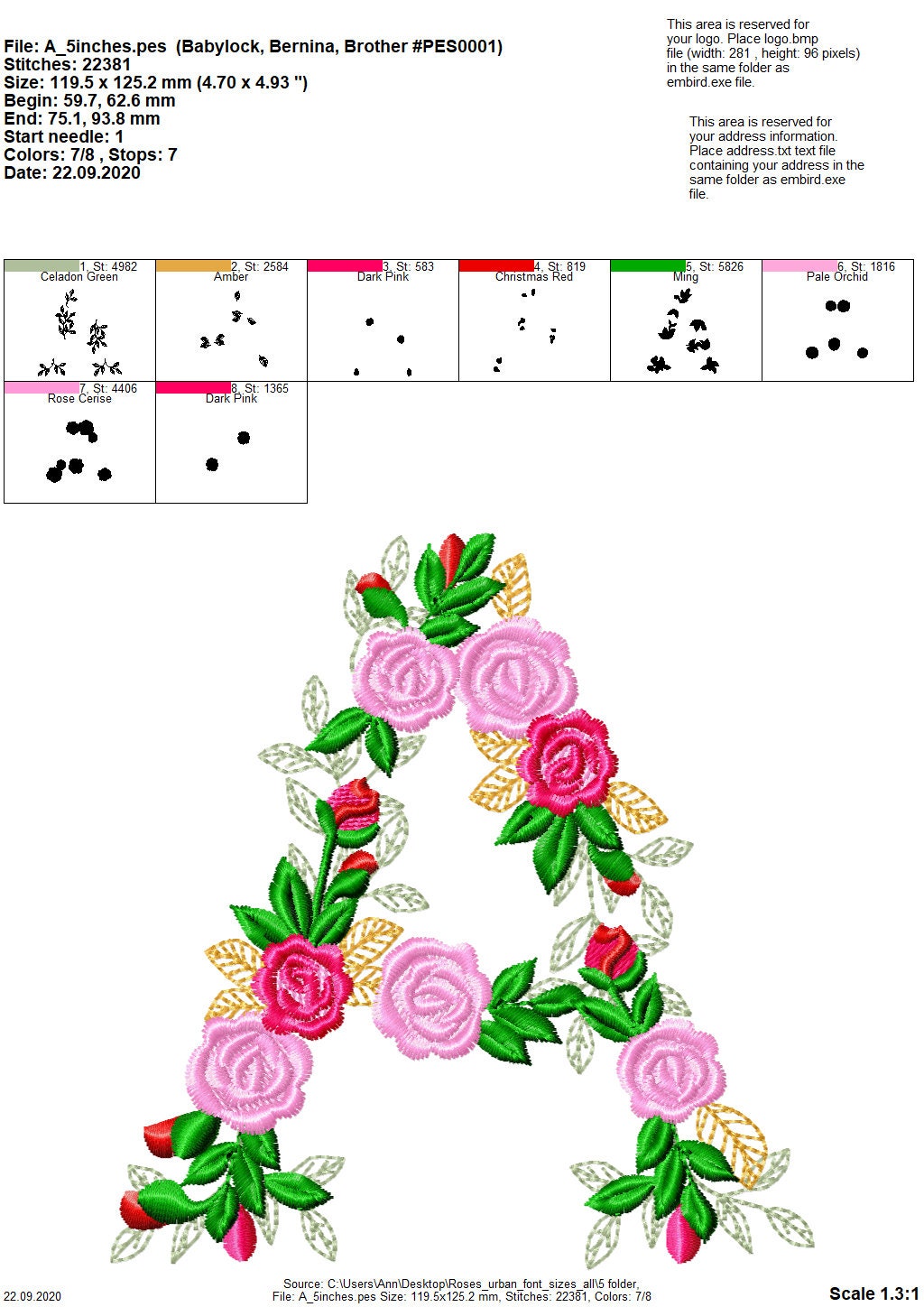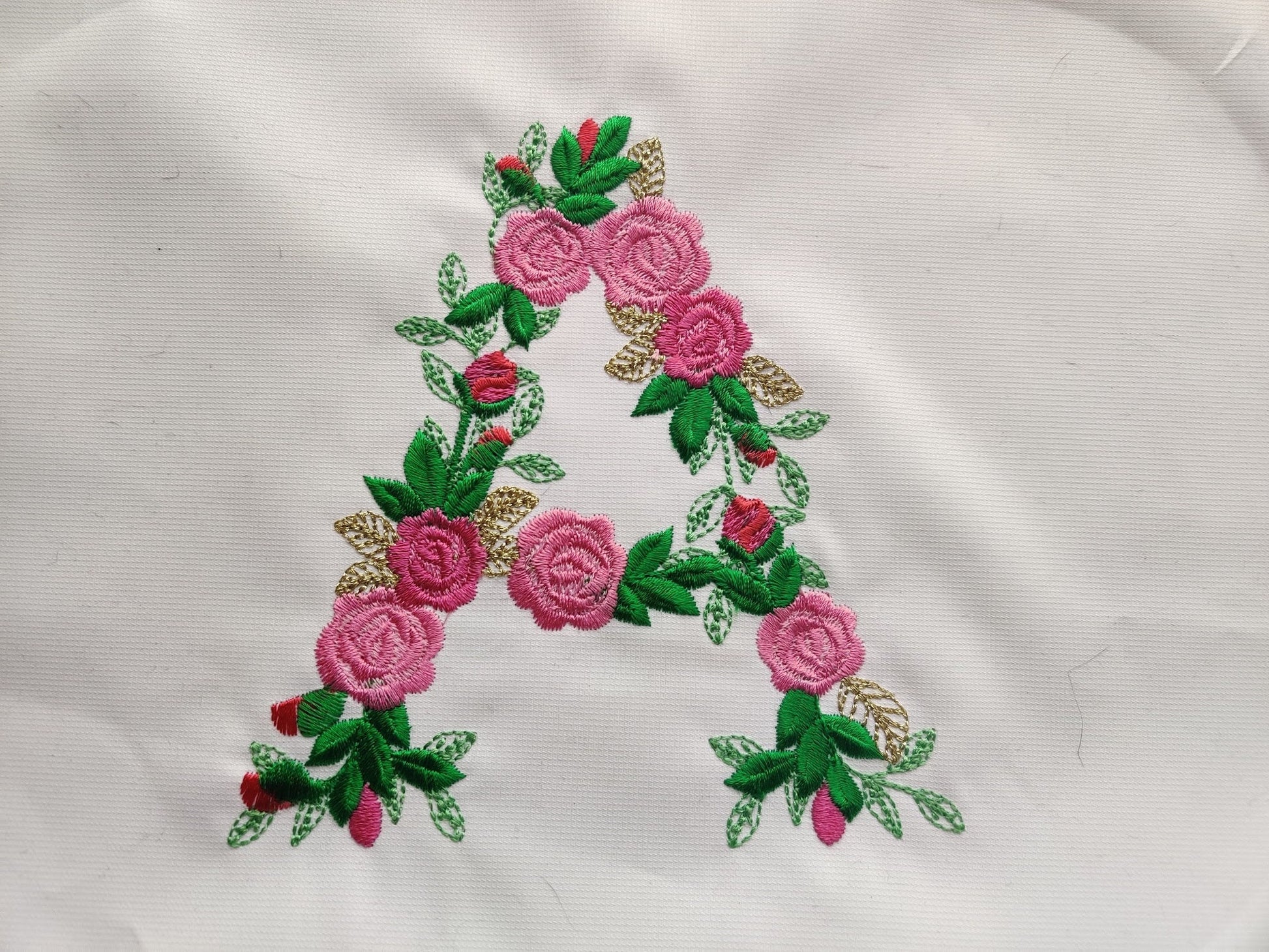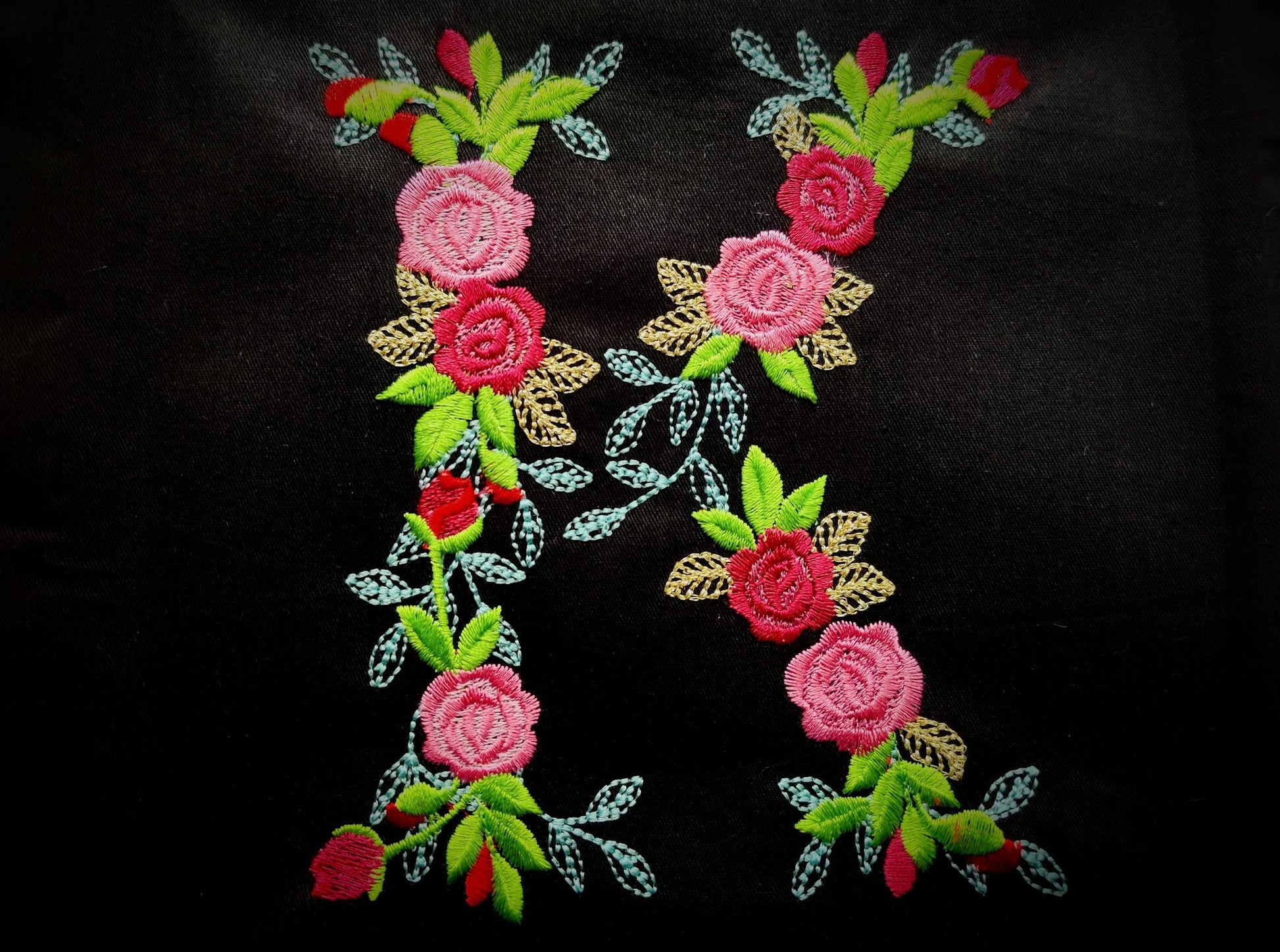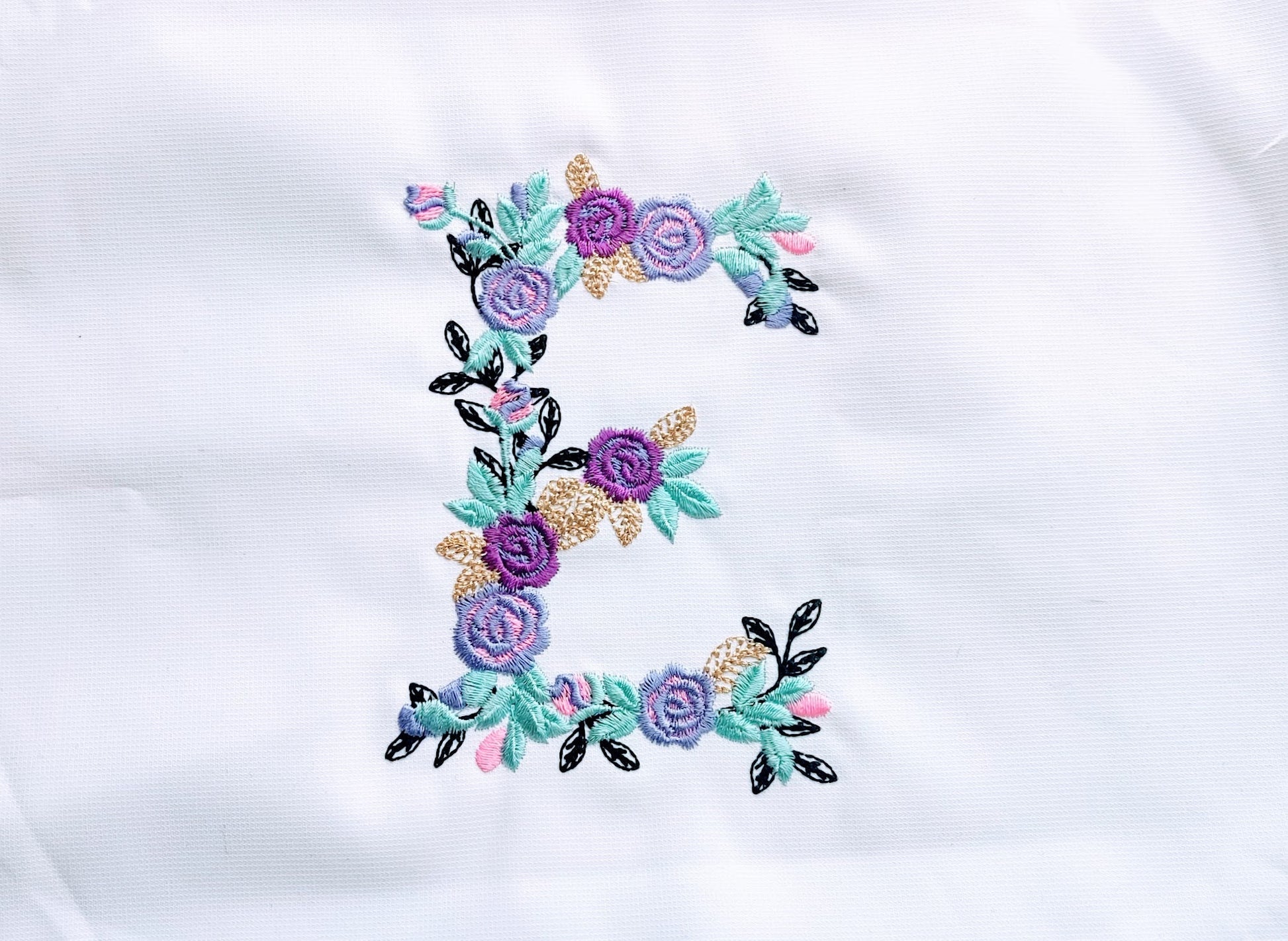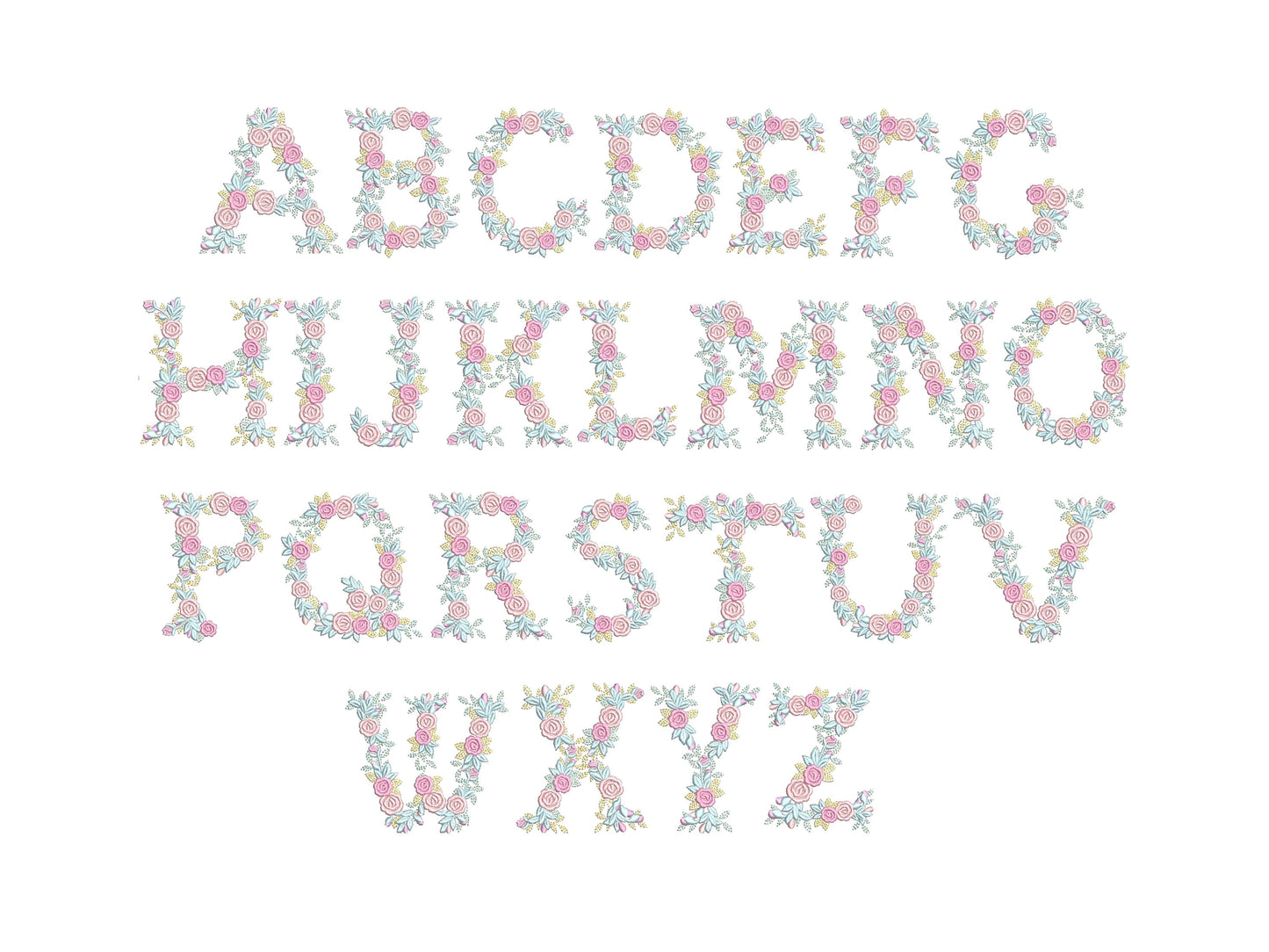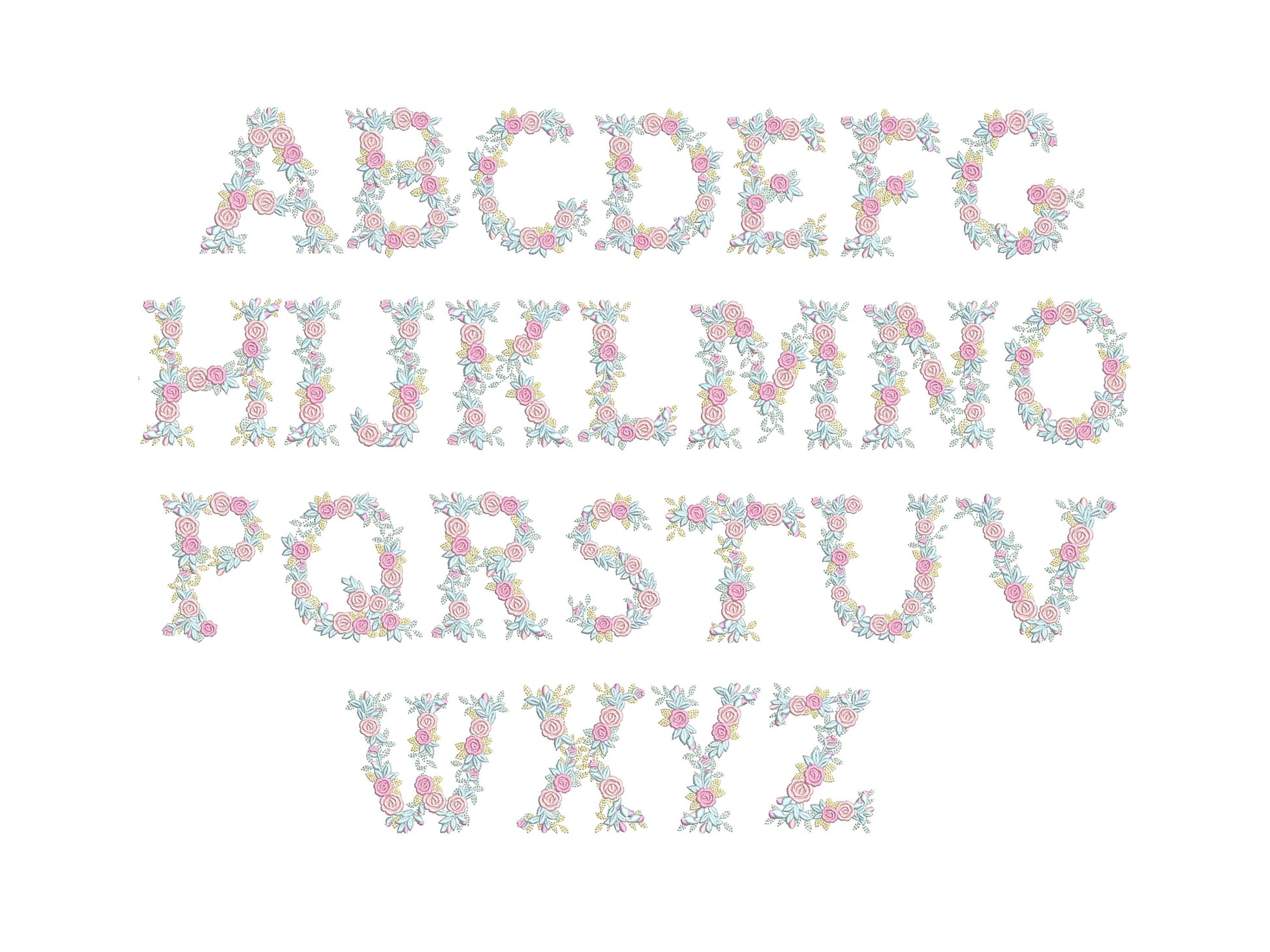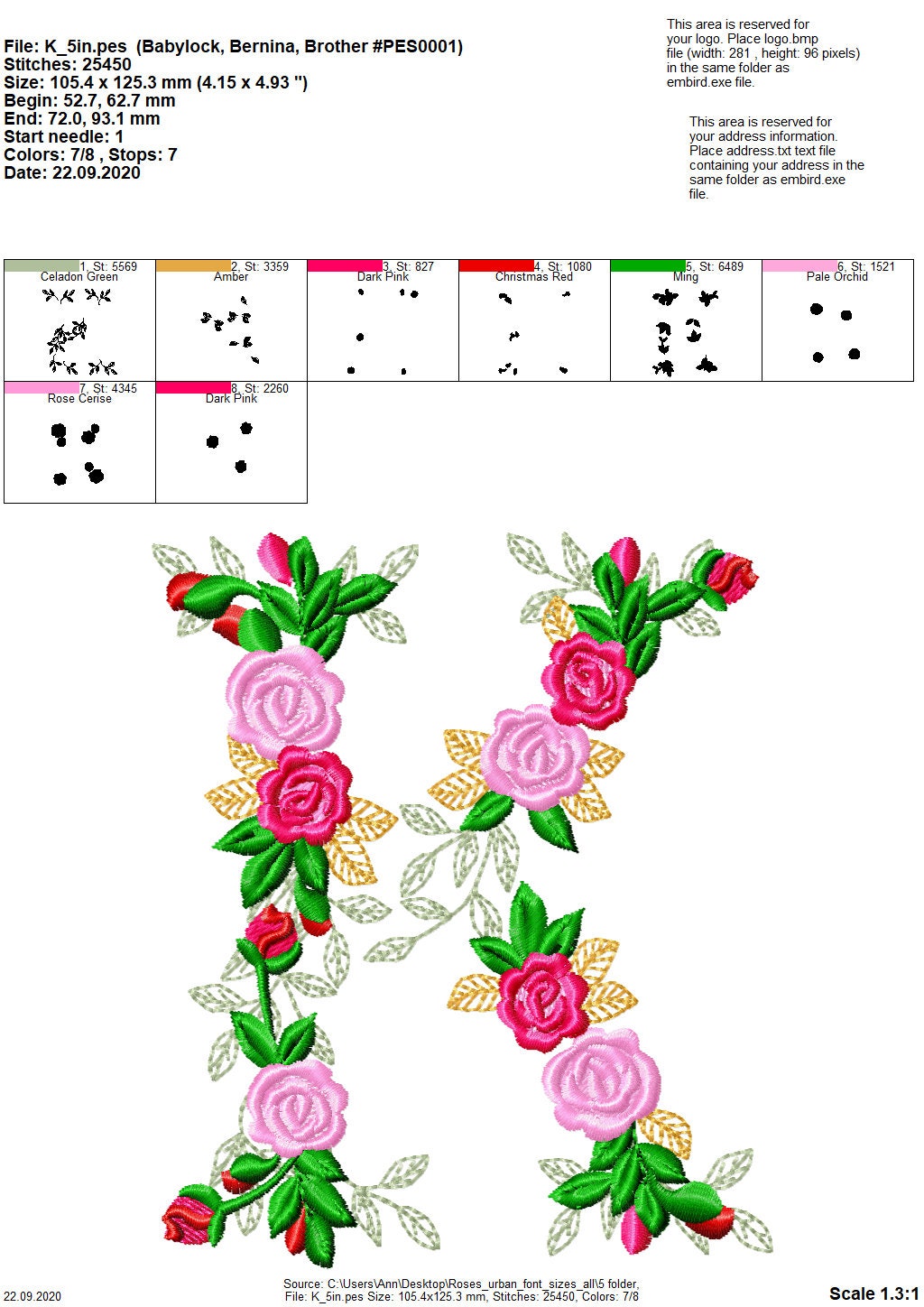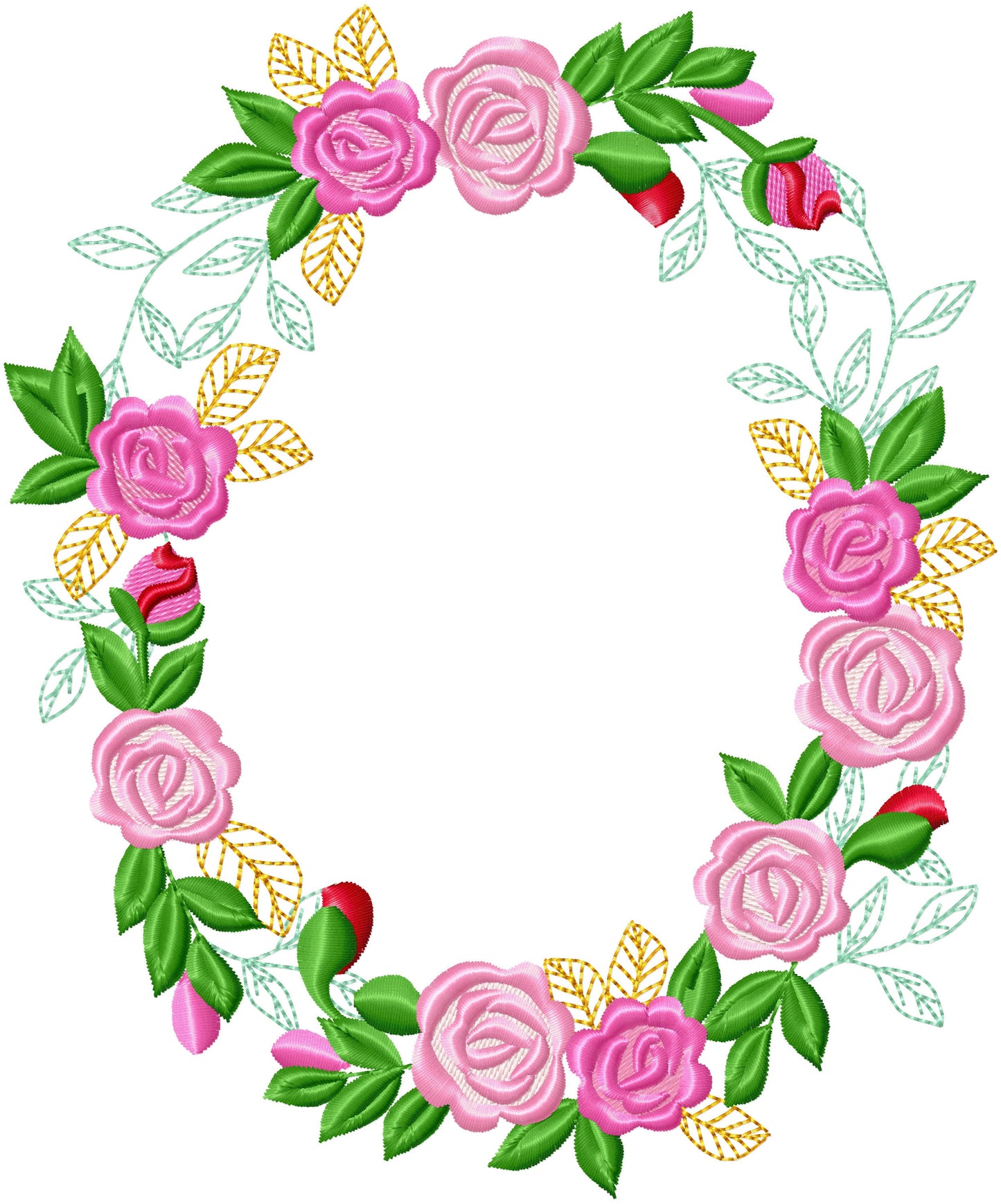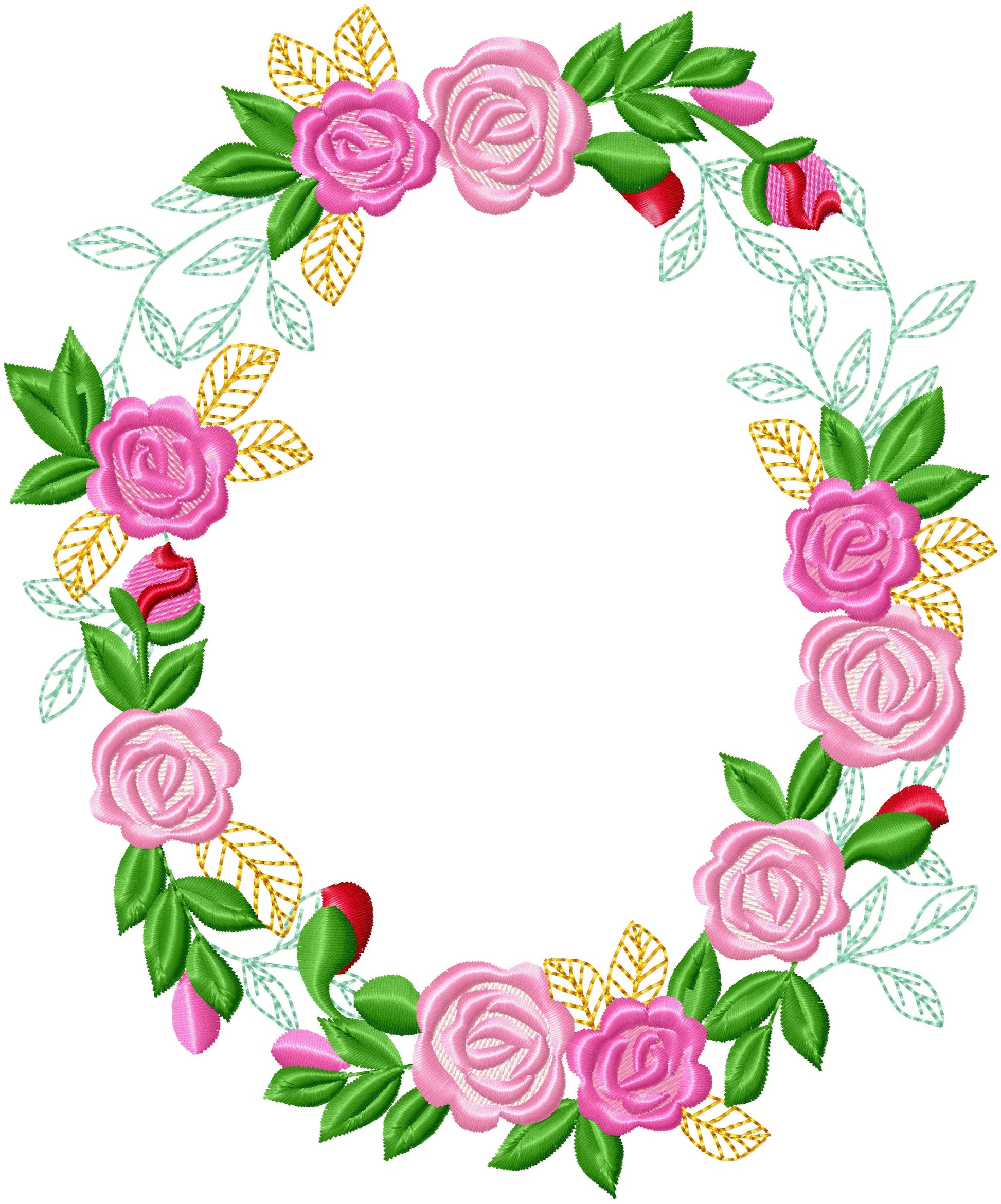
Or click to open the linkA delicate rose floral alphabet, for garden flags, pillows and elegant monograms.
Letters A to Z decorated with delicate roses, in five sizes: 3, 4, 6, 7 and 8 inches.